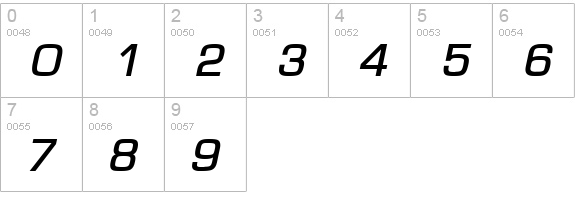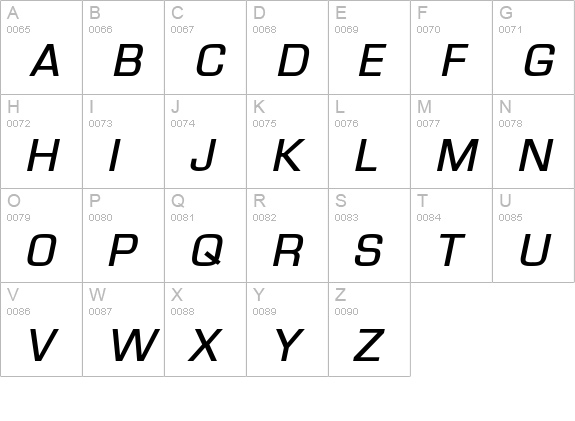
Eurasia Wide BoldItalic is a distinctive, extended-width variant in the Eurasia typeface family \xE2\x80\x94 well suited to design and typography projects.
Introducing Eurasia Wide BoldItalic, a sleek and modern font that combines elegance with a touch of sophistication. This versatile typeface exudes confidence and style, making it perfect for a wide range of design projects. The bold and italicized characters add a unique flair to any text, drawing the eye and making a statement. With its clean lines and distinctive curves, Eurasia Wide BoldItalic is sure to captivate your audience and leave a lasting impression. Whether you're designing a poster, logo, website, or any other creative project, this font will elevate your work to the next level. The best part? Eurasia Wide BoldItalic is completely free to download at FontsMarket.com. That's right - you can take advantage of this stunning font without breaking the bank. So why wait? Download Eurasia Wide BoldItalic today and let your creativity shine.